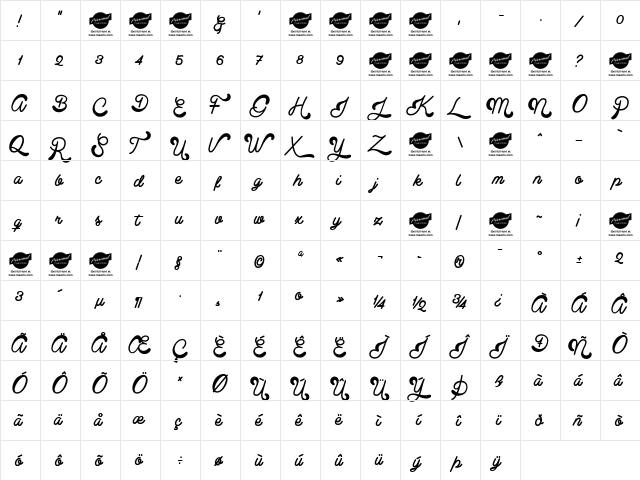
Clear Line PERSONAL USE ONLY Regular
Design Context for Clear Line PERSONAL USE ONLY Typeface
Clear Line PERSONAL USE ONLY is a composed and adaptable typeface that performs quietly and consistently across a wide range of design contexts.